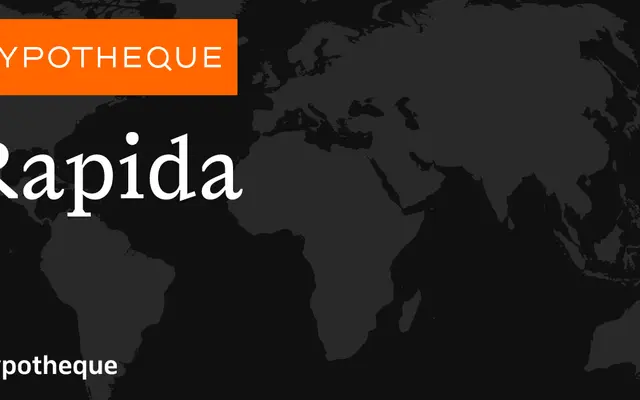
Rapida specimen from Typotheque
A grotesque sans-serif system from Typotheque offered in five weights with italics, a companion display subfamily called Rapidissima, and a variable font.
The family is structured around two subfamilies: Rapida, which includes italic cuts across all five weights, and Rapidissima, an upright-only companion intended for display use. A variable font option spans the weight axis, giving fine-grained control for screen and print applications. The system is suited to editorial and book work, as evidenced by its use in the ExEdícia book series.
Rapida presents as a contemporary grotesque sans-serif with a range of weights from Regular to Black, including italic variants and a variable font offering, typical of a workhorse grotesque system.